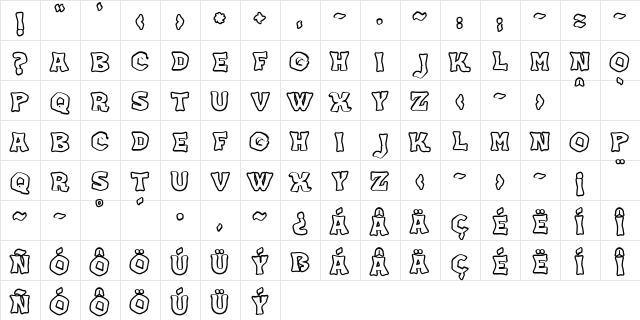
JMH KORAK OUTLINE Regular
Design Context for JMH KORAK OUTLINE Typeface
JMH KORAK OUTLINE brings ornamental detail and strong personality to headlines and identities, where visual impact matters more than quiet functionality.
Font Pairing: Pair with a clean neutral sans-serif for body copy to let JMH KORAK OUTLINE's character lead without overwhelming the composition.
Pro Tip: Treat JMH KORAK OUTLINE as the centrepiece of your typographic hierarchy. One strong heading set in a decorative face can carry an entire layout.